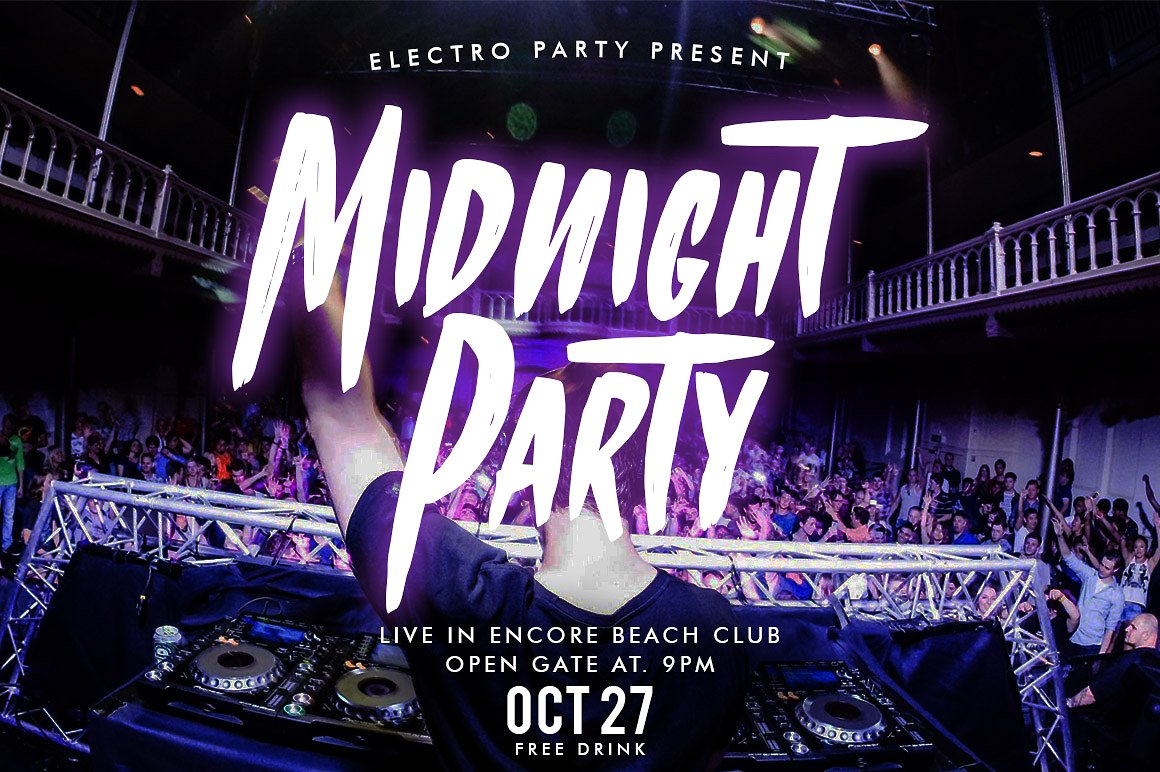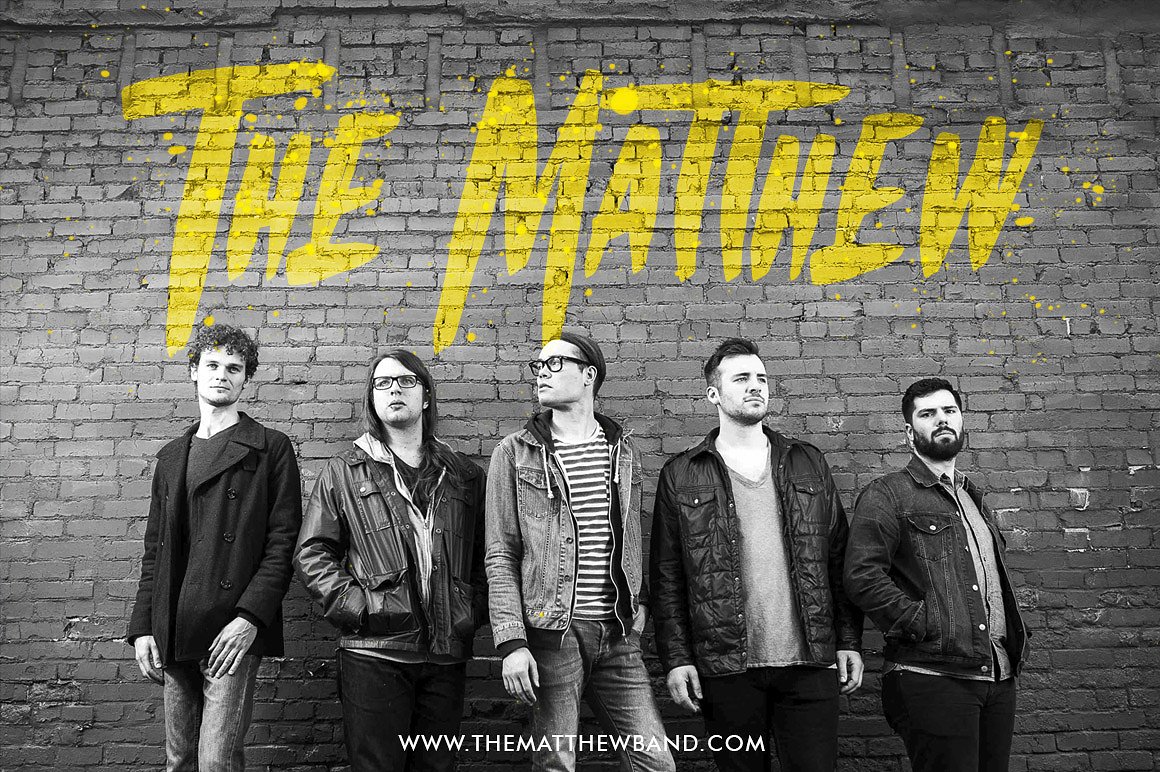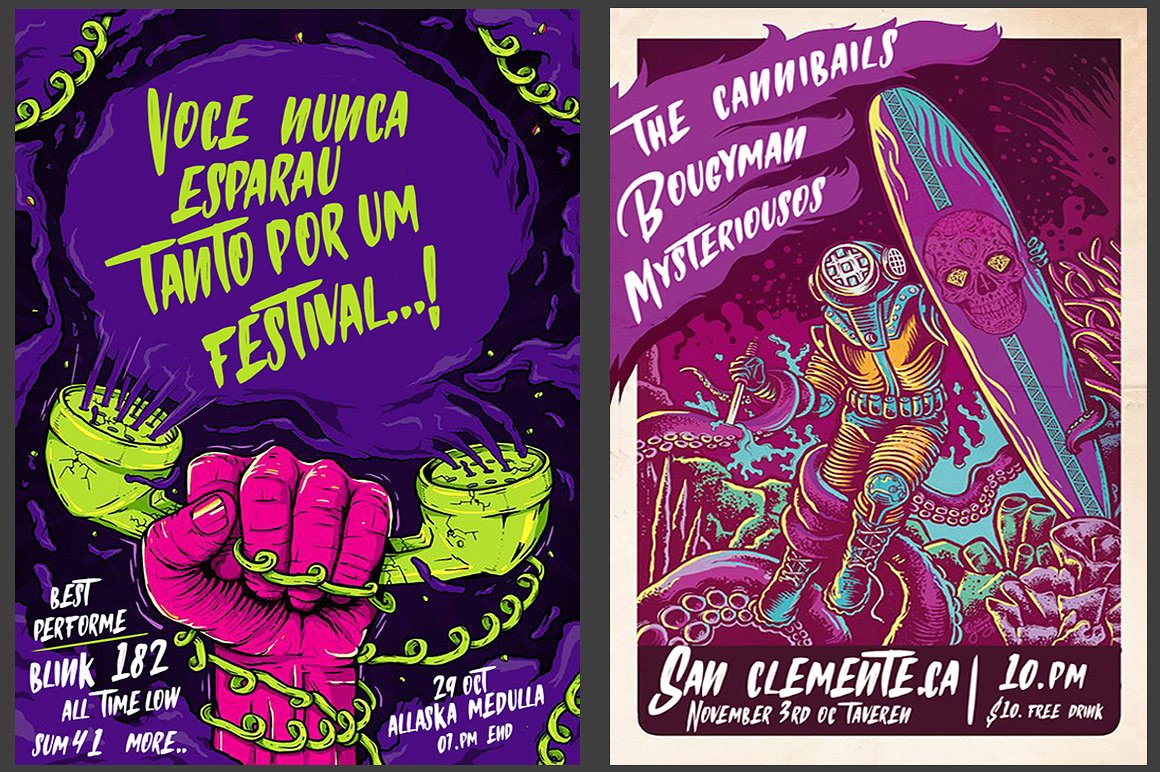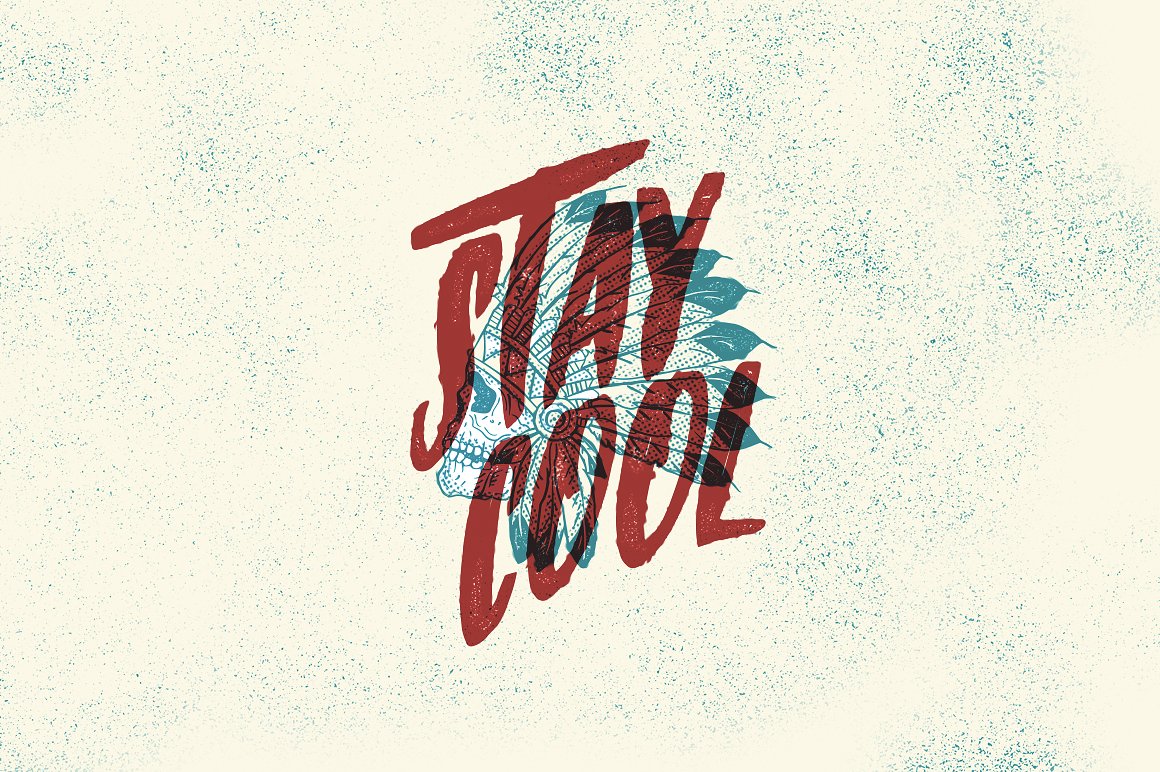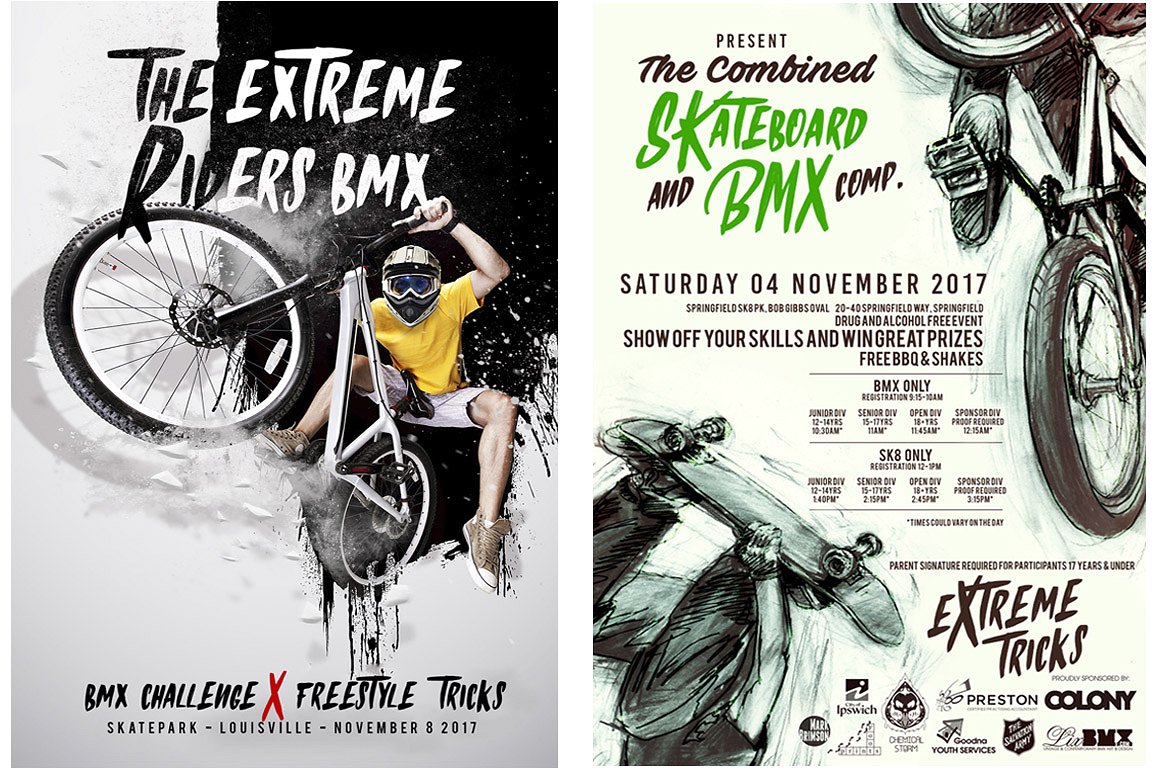
Introduction to Matthew Rough Font
Matthew Rough is a dry brush font with rough, bold strokes.
It is digitized and optimized to work well in both print & digital design and can be used for promotional materials, business cards, posters and much more .
Key Features of Matthew Rough Font